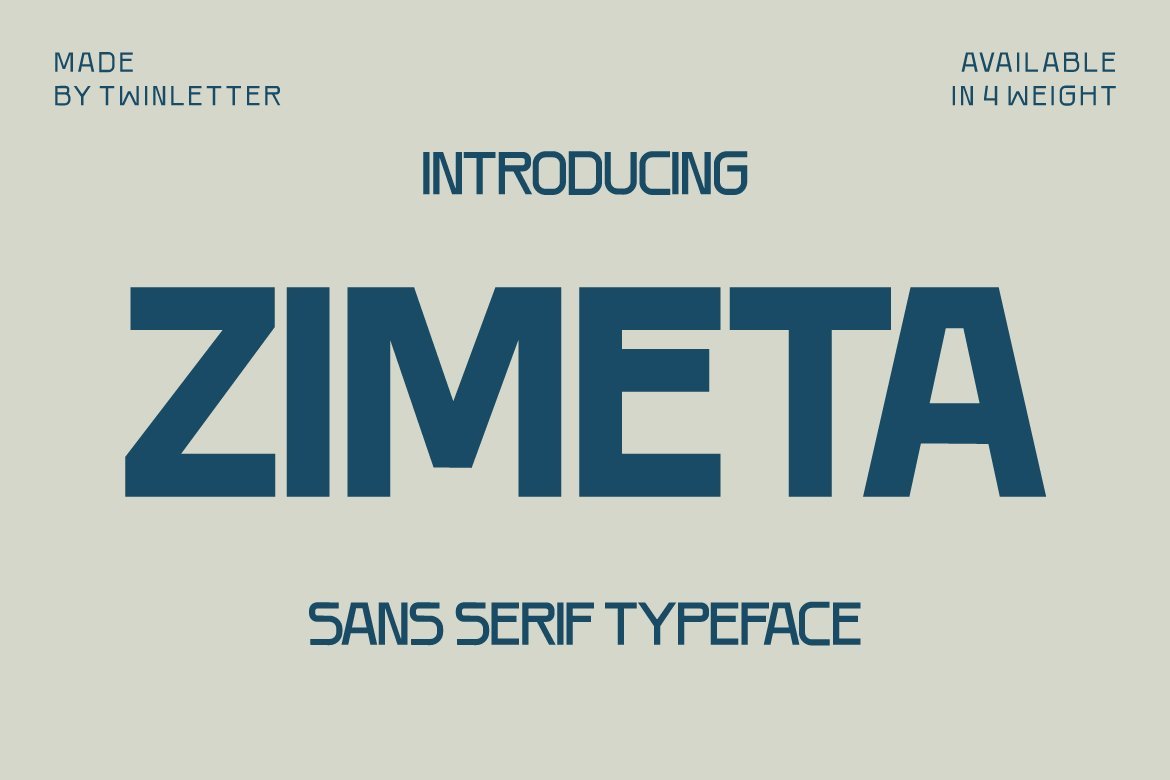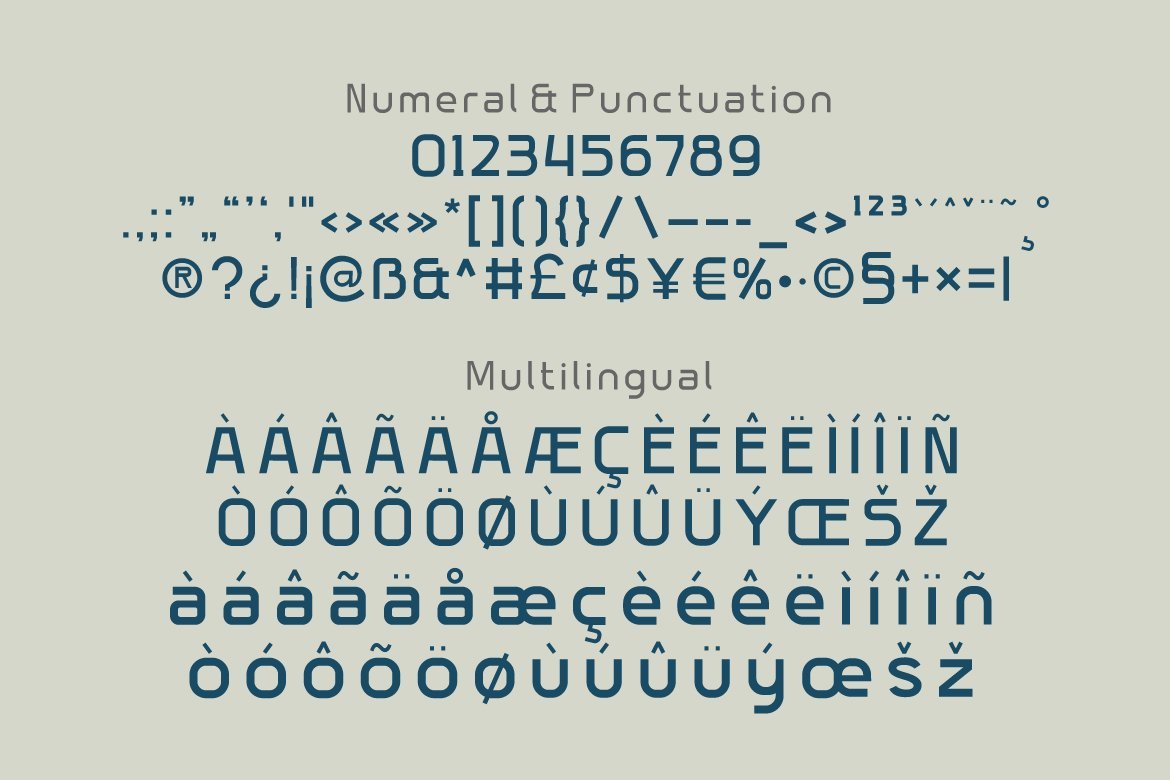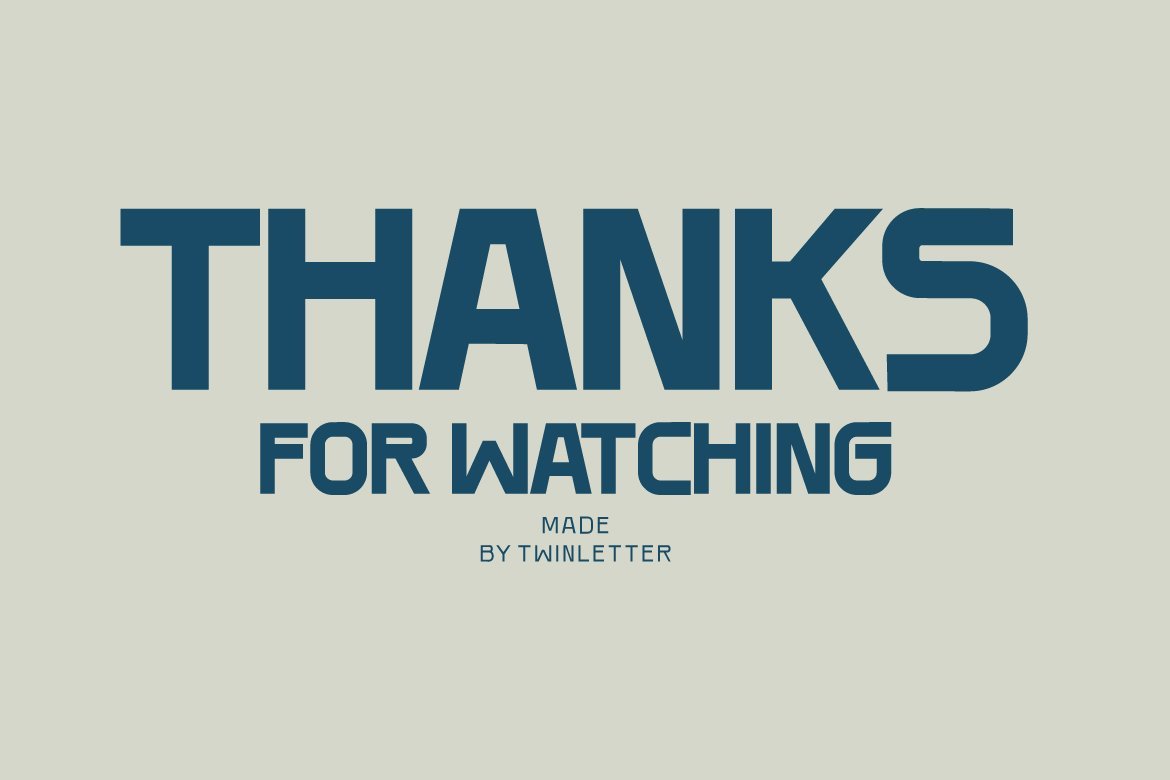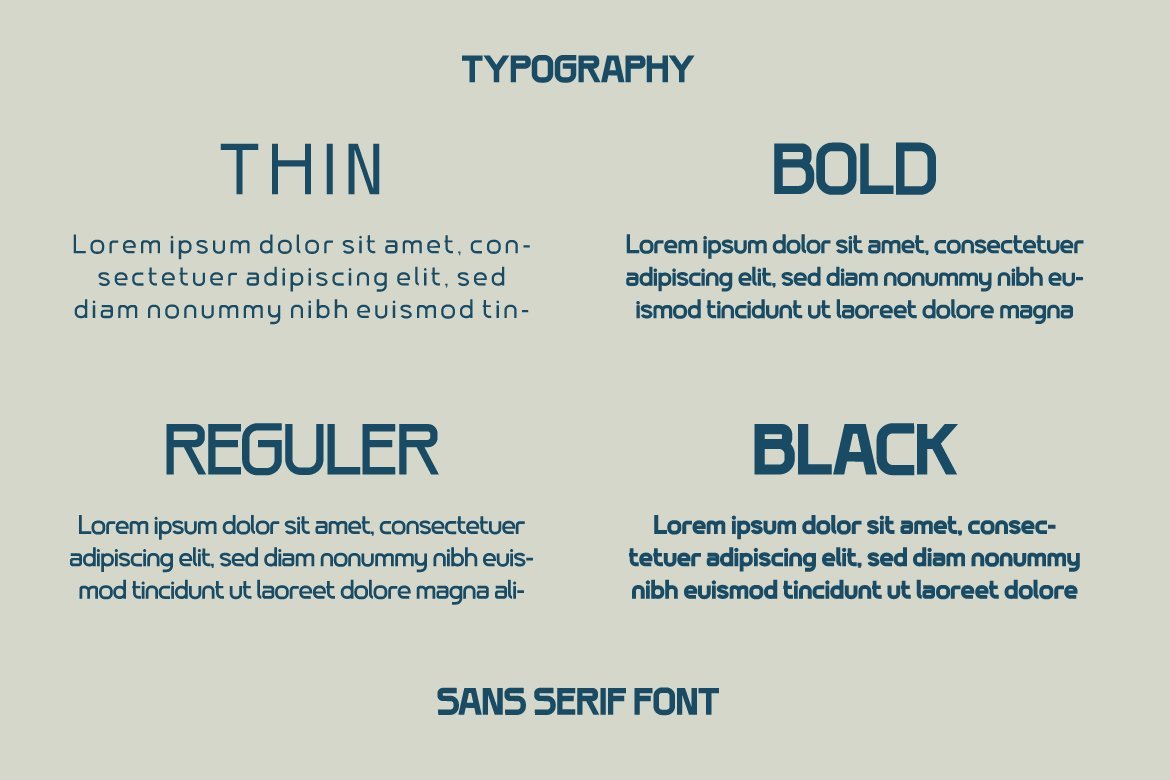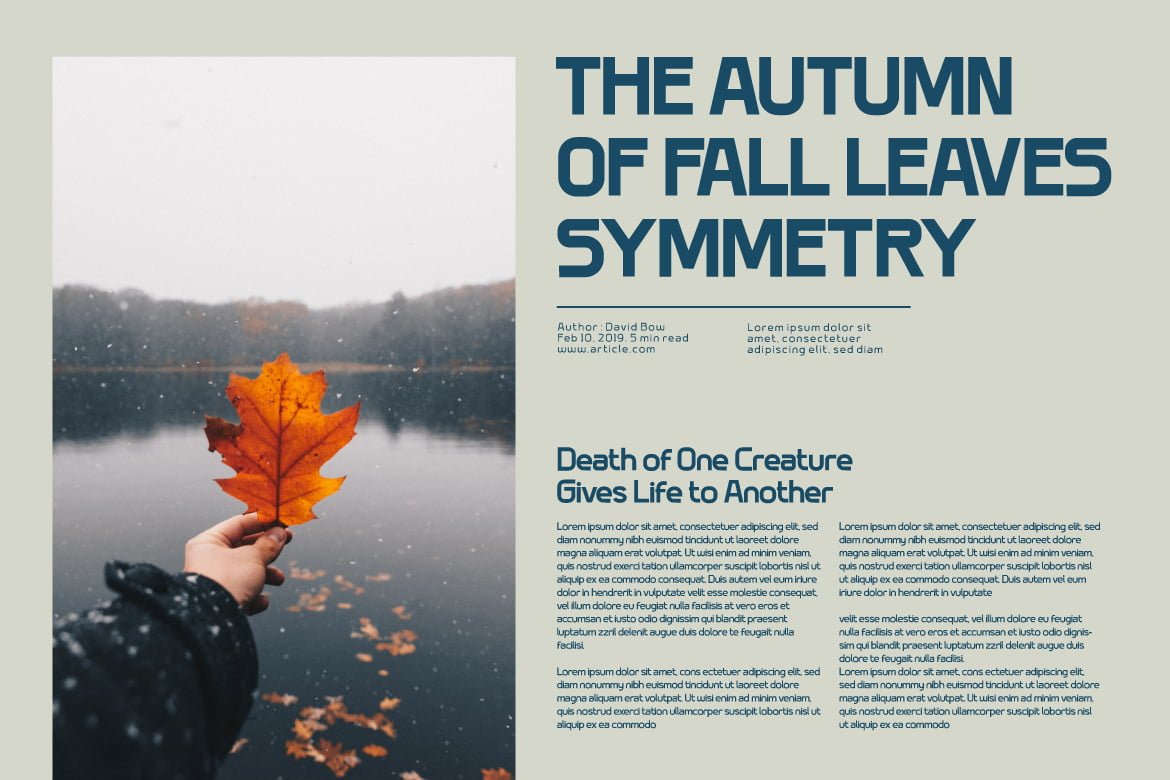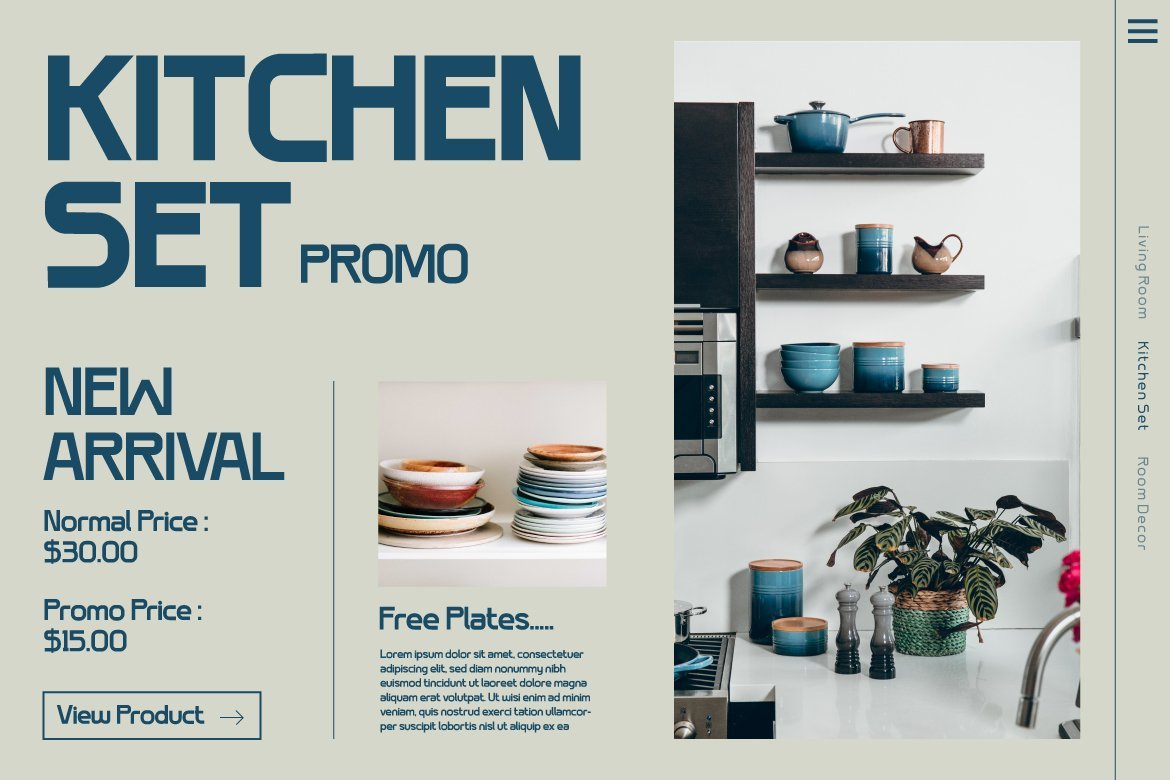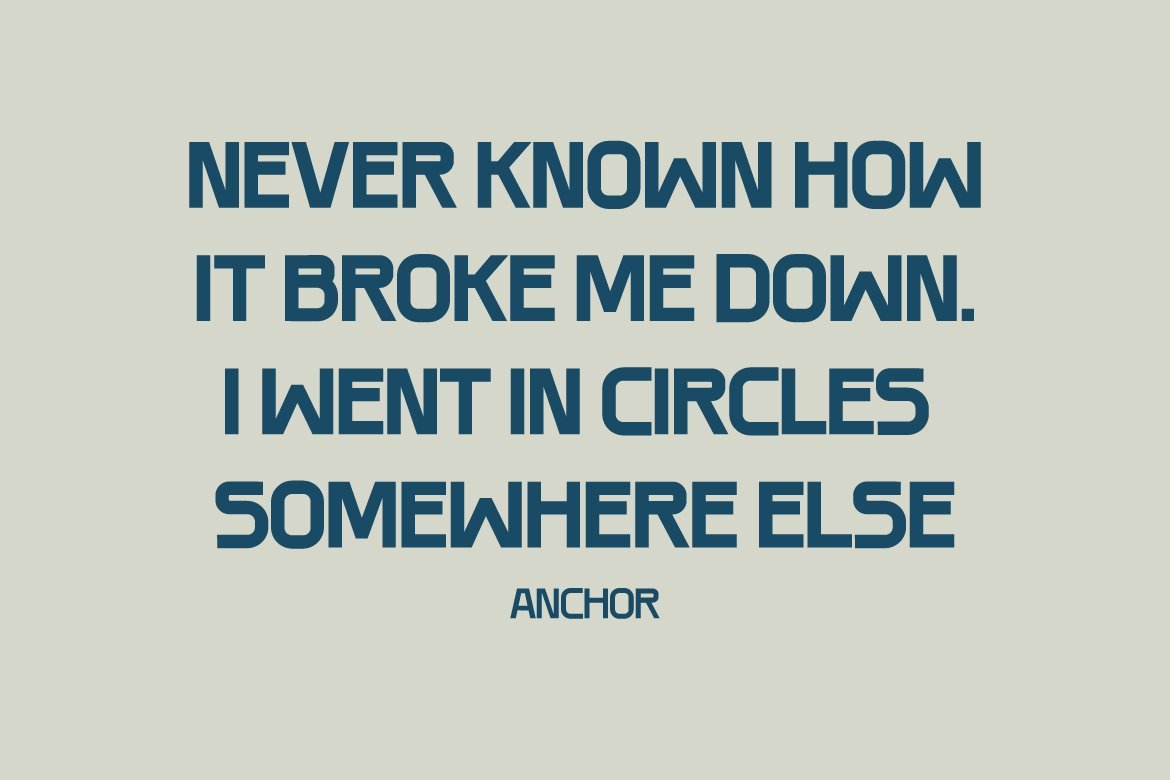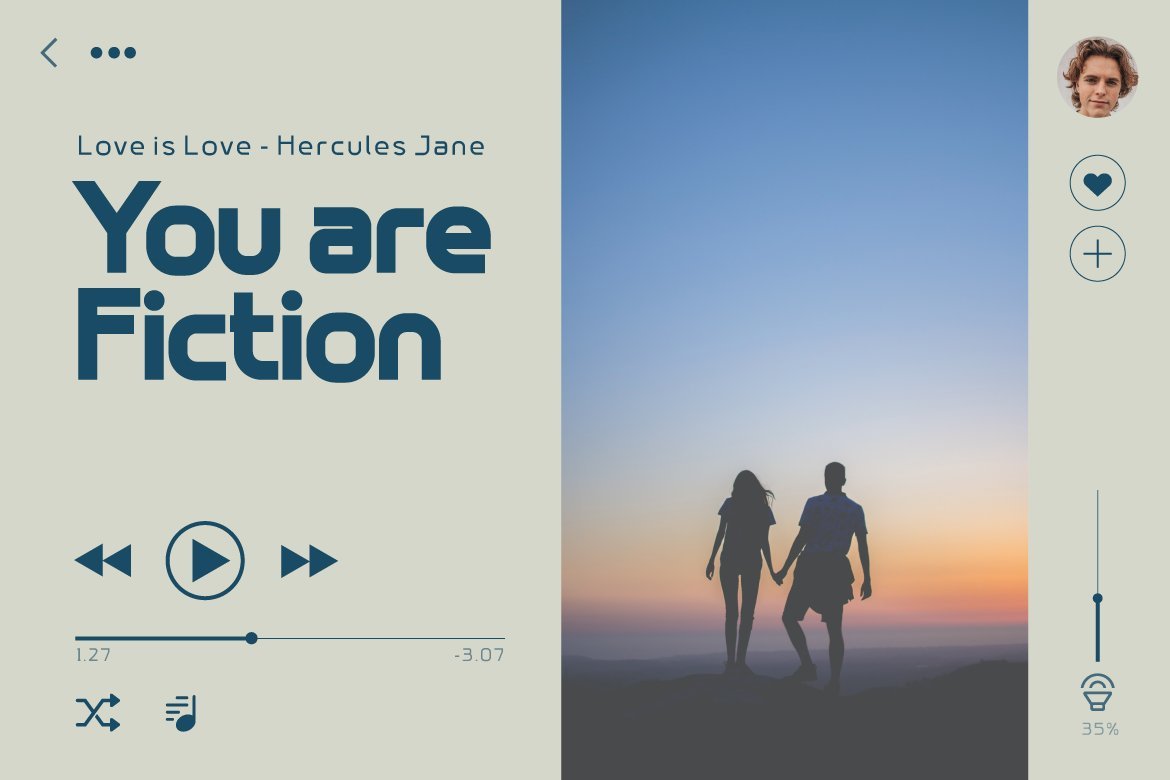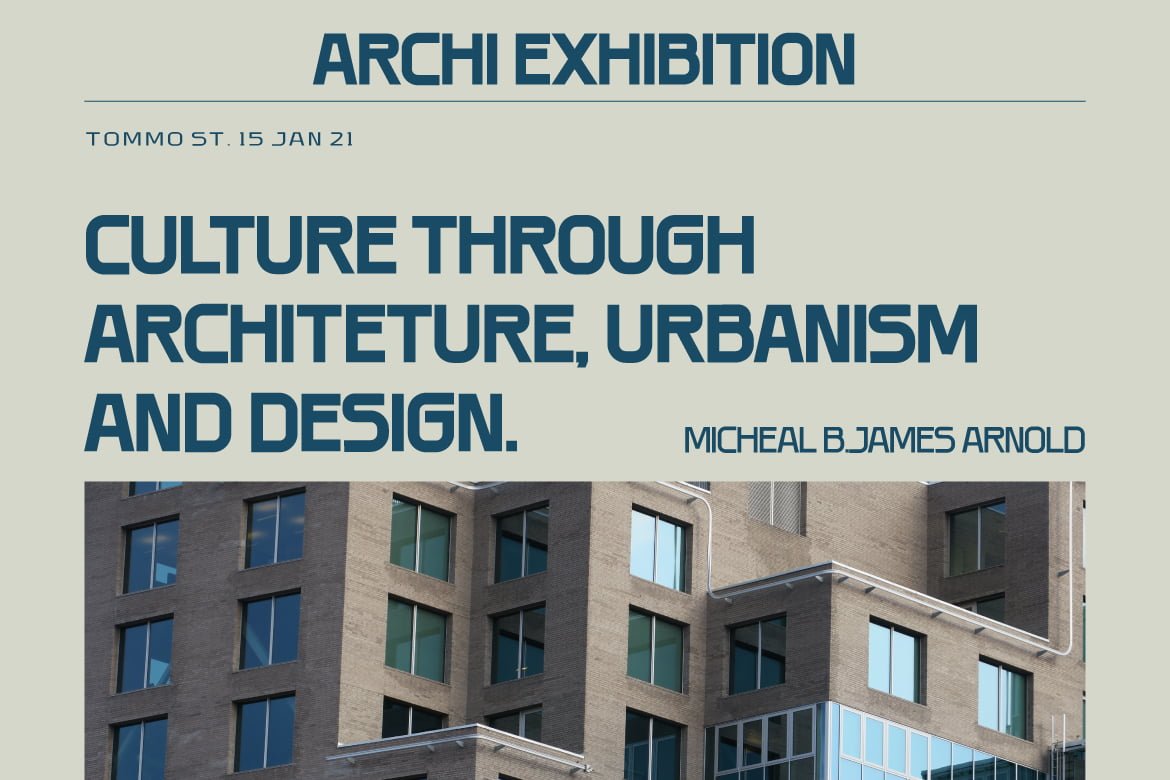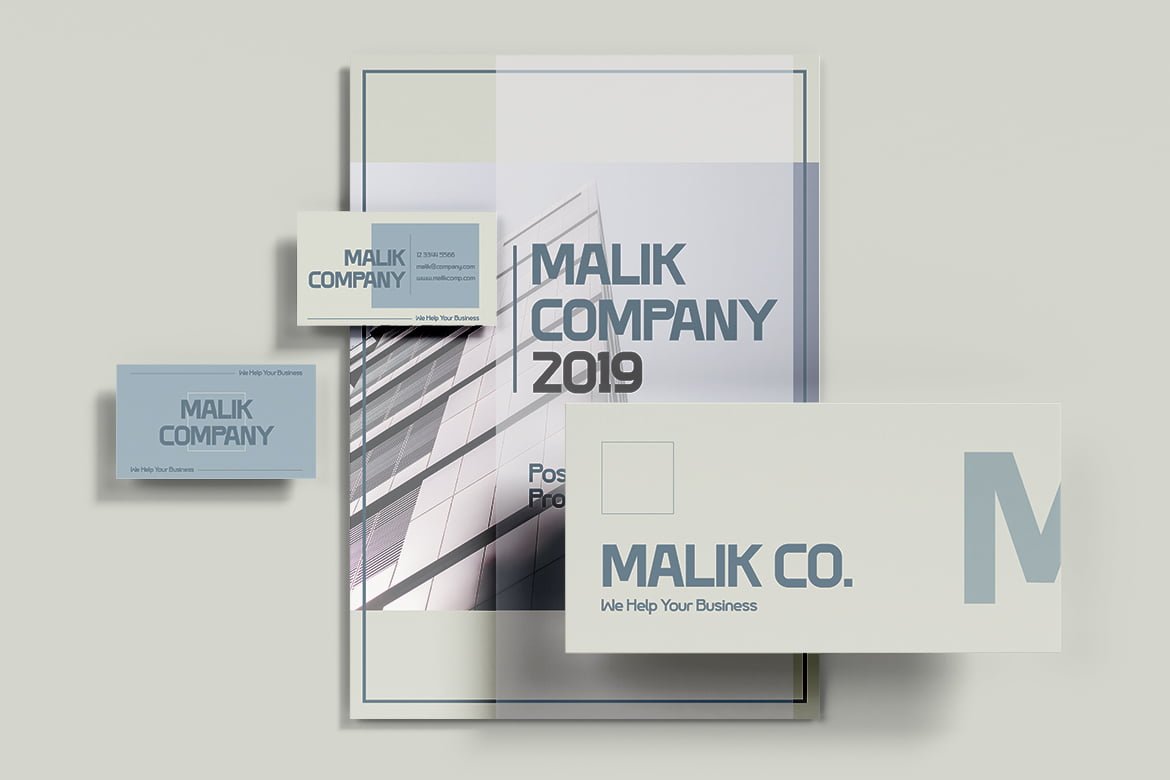
Zimeta
Zimeta is a sanserif font with a unique style that we created specifically for you to satisfy your diverse demands, where a friendly font and strong character make your project bold and powerful.
• Fonts include multilingual support for; Afrikaans, Albanian, Croatian, Czech, Danish, Dutch, English, Estonian, Finnish, French, German, Hungarian, Italian, Norwegian, Polish, Portuguese, Slovak, Slovenian, Spanish, Swedish